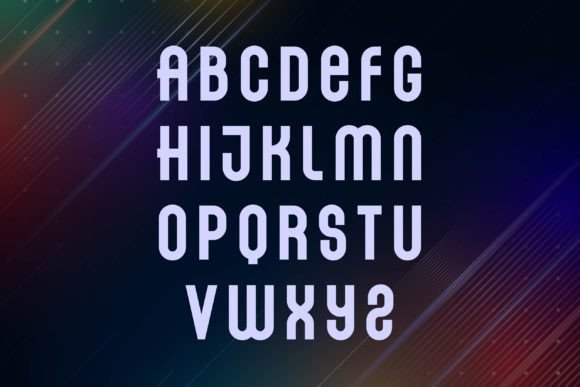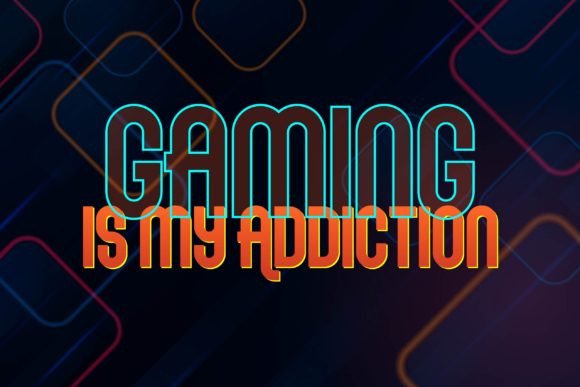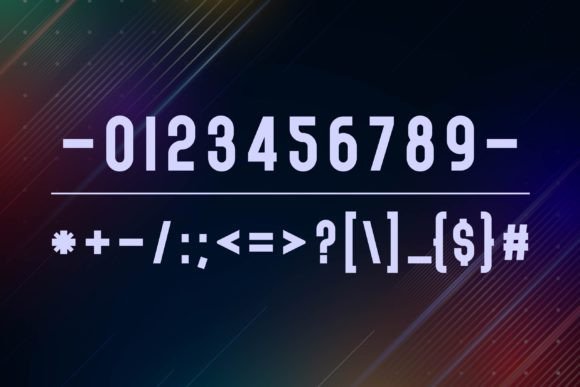
Introduction to Myrant Font
Have you ever stared at a blank screen, waiting for the perfect font to strike inspiration? For designers, finding the right font can be a game-changer. It’s that moment when the words start flowing, and the project begins to take shape. And, for those seeking a high-quality display font that delivers a bold, modern aesthetic, we’ve got exciting news. Meet Myrant Font, a sleek and stylish display font crafted with a Gothic twist, perfect for making a statement in your creative projects.
What sets Myrant Font apart is its exceptional design and versatility. With 96 carefully designed glyphs and 95 characters, it offers a clean and modern look that’s ideal for movie titles, game names, and even T-shirt designs. Whether you’re working on a free download or a paid design project, Myrant Font is an invaluable resource for designers seeking a futuristic and impactful visual statement.
Key Features of Myrant Font
- High-quality design with a transparent background, ideal for creative projects.
- Includes a range of weights and styles, allowing for versatile use in different creative projects.
- Designed with a unique aesthetic, making it a standout choice for designers looking for something distinct.
- Perfect for use in digital design, including web design, graphic design, and UI/UX design.
Honest Review: Myrant Font
I recently had the chance to work with the Myrant Font, and I have to say it’s been a game-changer for my creative projects. The font is truly a high quality design resource that offers a lot of flexibility.
One of the standout features of the Myrant Font is its transparent background. This makes it incredibly easy to use, especially when working on complex designs. The font is also highly customizable, allowing me to adjust the size, color, and style to fit my needs.
- Transparent background for easy use
- Customizable size, color, and style
- Some users may find the font a bit too modern or experimental
- May not be suitable for more traditional or conservative design projects
Overall, I’m really impressed with the Myrant Font. It’s a great addition to my design arsenal, and I would definitely recommend it to others. With its high quality design and transparent background, it’s a must-have for any creative project.
Common Use Cases for the Myrant Font
The Myrant Font is a versatile design resource that can be used in a variety of creative projects, including presentations, documents, graphics, and more. It’s a great option for anyone looking for a high-quality
Can I use the Myrant Font with a transparent background in a design?
Yes, the Myrant Font is designed to work seamlessly with transparent backgrounds, allowing you to create visually stunning designs with a clear and crisp appearance.